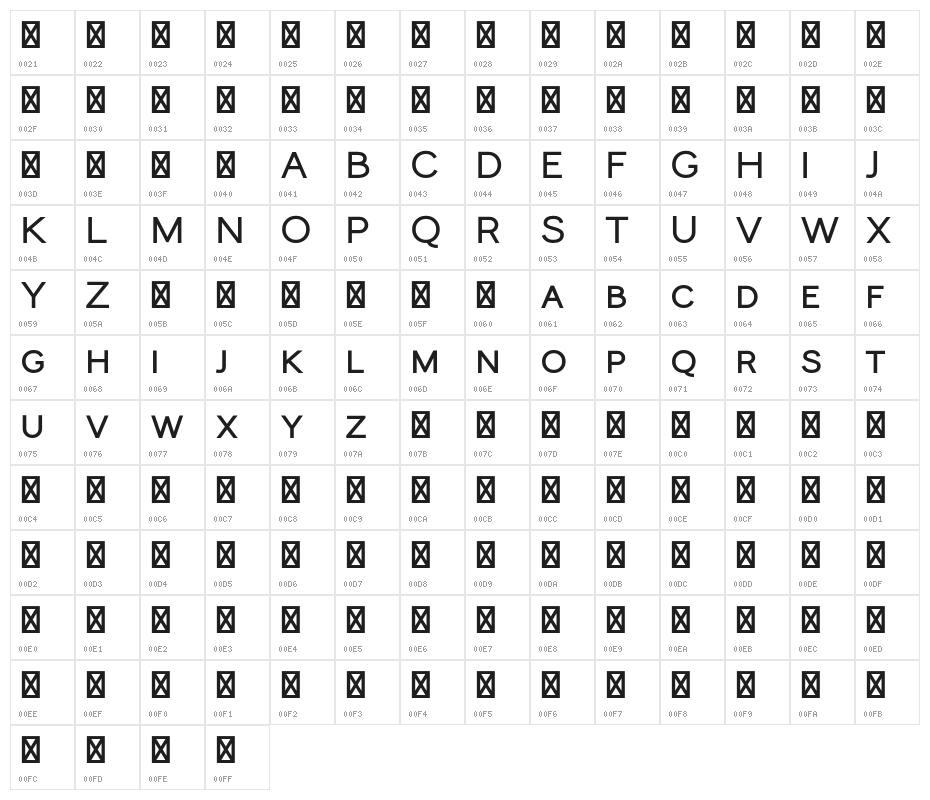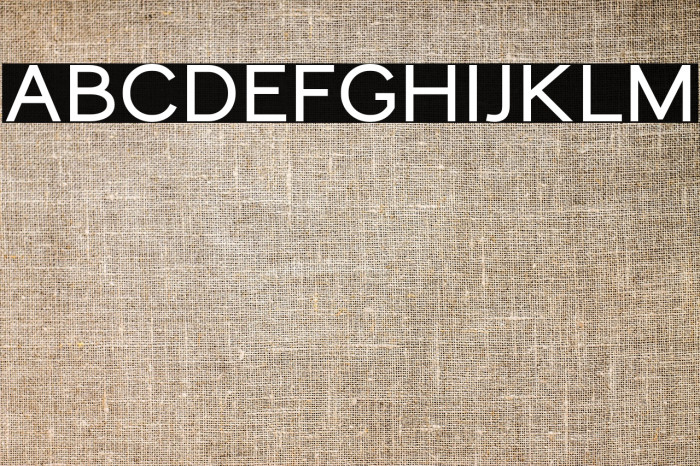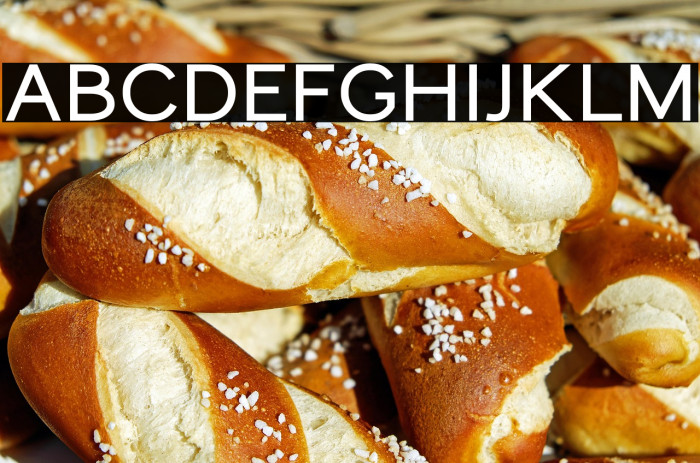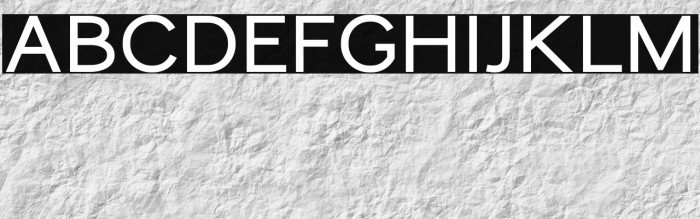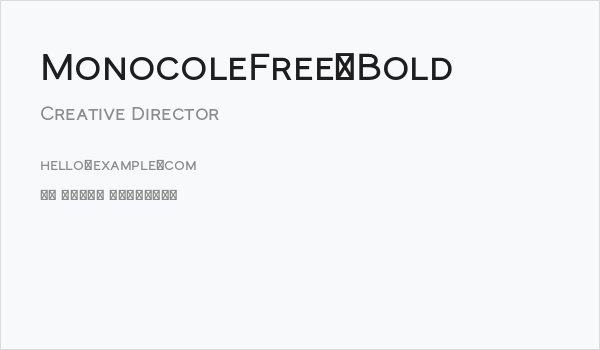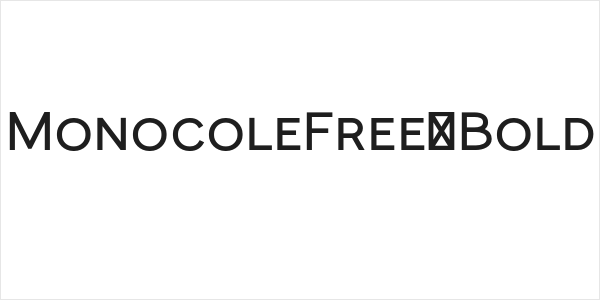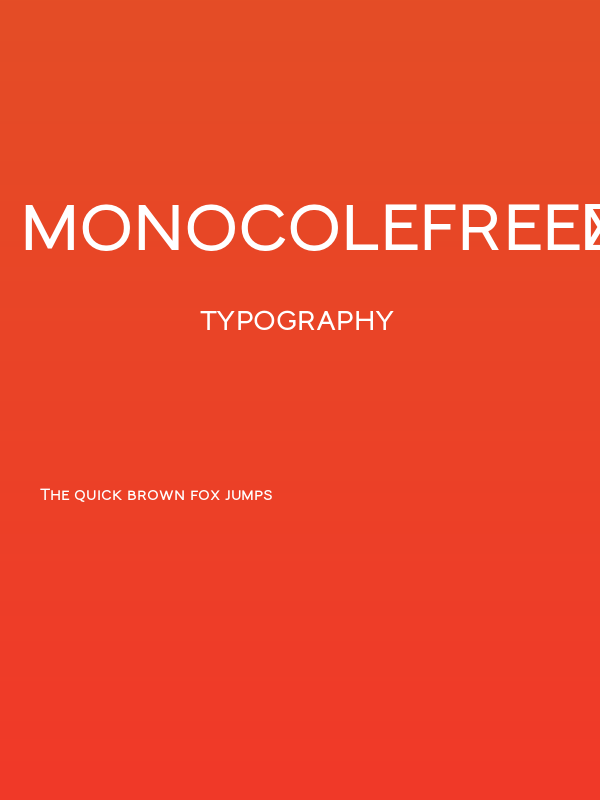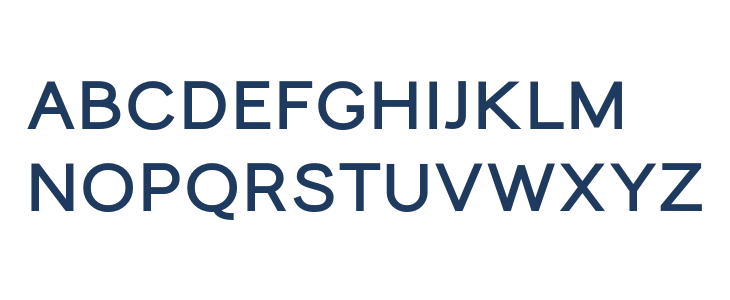
MonocoleFree-Bold Font
MonocoleFree-Bold Description
This font features a clean and modern sans-serif design with bold, uniform strokes that convey a sense of strength and clarity. The characters are well-proportioned with a consistent height, making them highly legible. The uppercase and lowercase letters maintain a harmonious balance, while the numerals are straightforward and easy to read. The special characters are designed to match the overall aesthetic, ensuring a cohesive look across all text elements. This font's simplicity and boldness make it versatile for various applications.